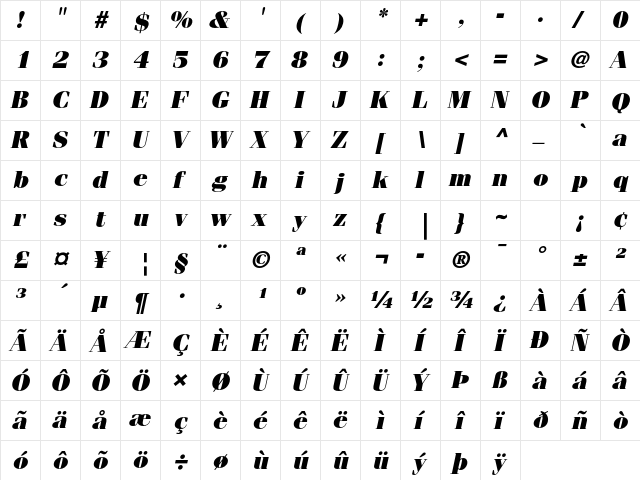
ITC Fenice Std Ultra Oblique
| Designer | Aldo Novarese |
Design Context for ITC Fenice Std Typeface
ITC Fenice Std offers clean, dependable letterforms without strong stylistic allegiance, making it a practical choice for designers who need flexibility. Its italic angle brings a sense of urgency and motion to the letterforms.
Pro Tip: Try ITC Fenice Std for annotation and caption copy alongside an upright companion — the contrast in angle creates a dynamic but ordered typographic system.